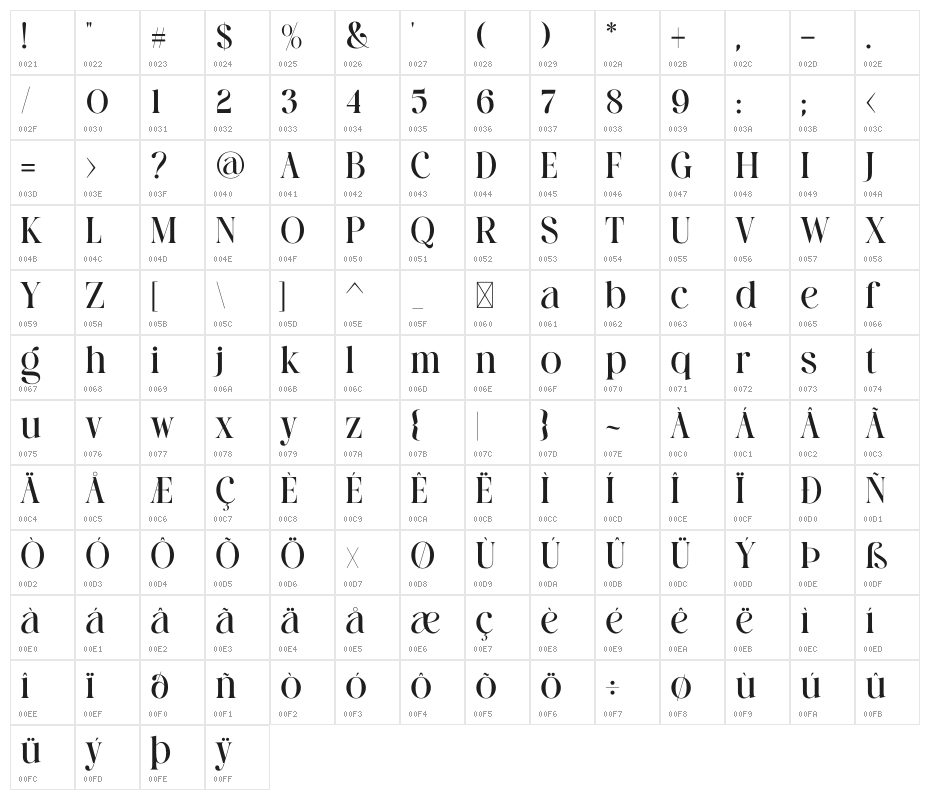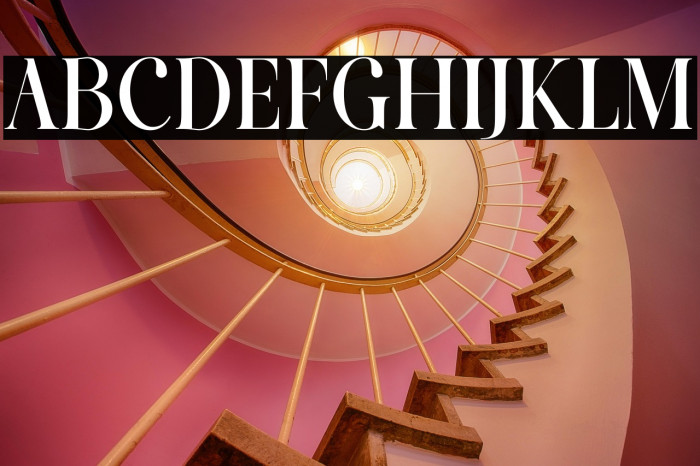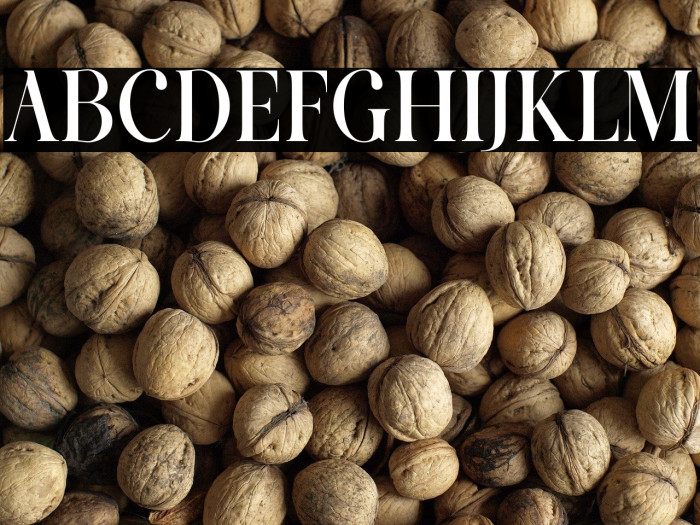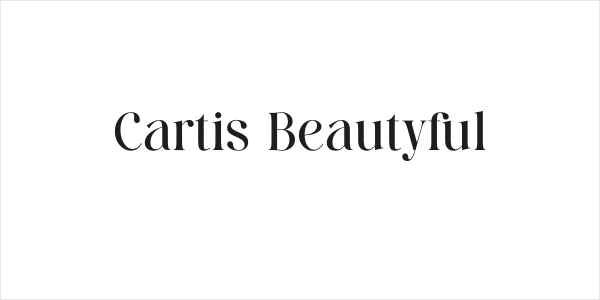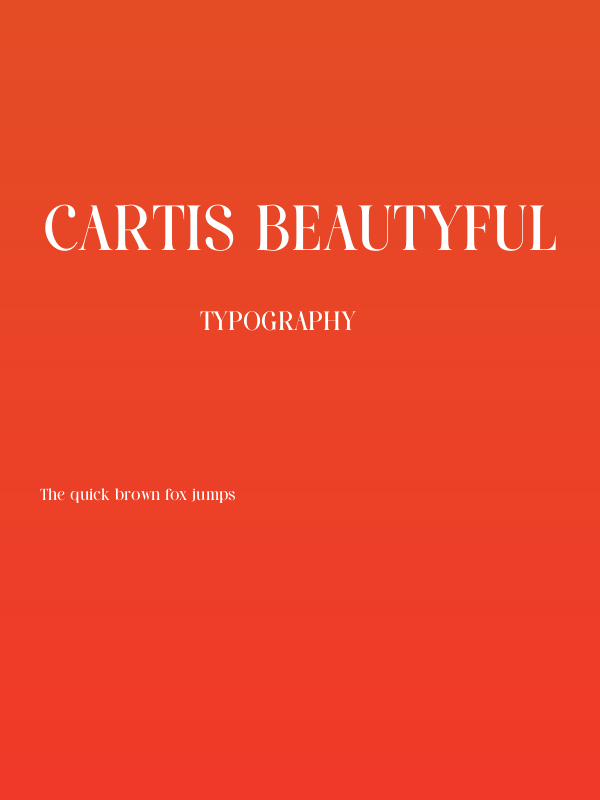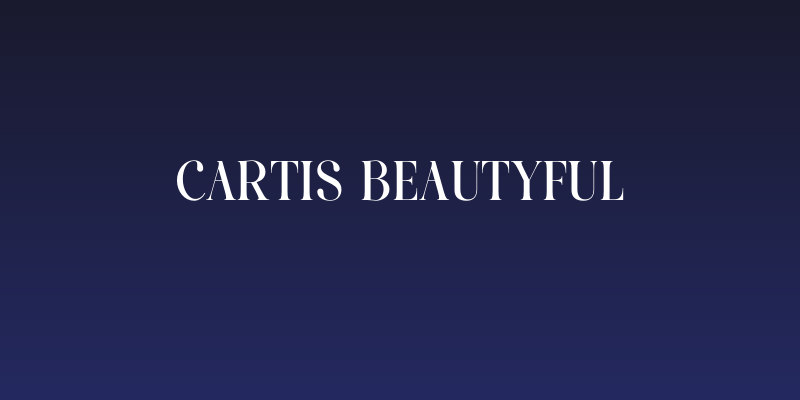
Cartis Beautyful Font
Cartis Beautyful Description
This elegant serif font features a sophisticated and classic design, characterized by its high contrast between thick and thin strokes. The uppercase letters exhibit a refined and formal appearance, while the lowercase letters maintain a graceful flow. The numerals are distinct and easy to read, complementing the overall aesthetic. Special characters are thoughtfully designed, adding versatility to the font. The font's style is suitable for projects that require a touch of elegance and tradition, making it ideal for formal invitations, editorial design, and luxury branding.
| Use Case | Headlines, Editorials, Branding |
| Proposed Projects | Ideal for formal invitations, editorial design, luxury branding, and high-end product packaging. |